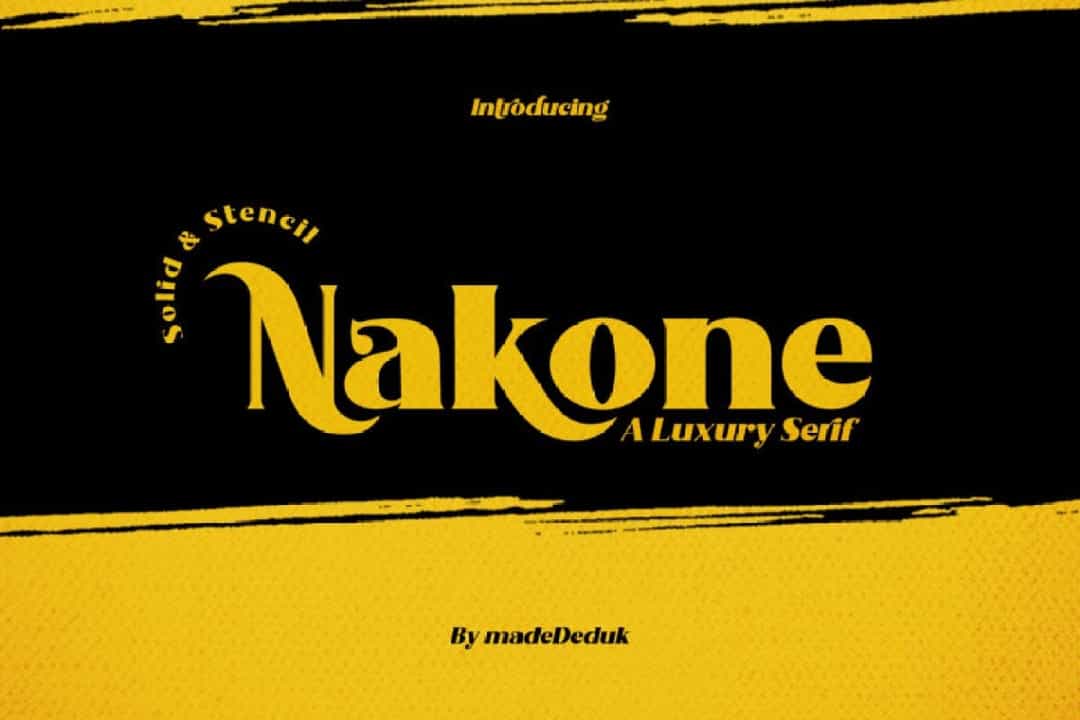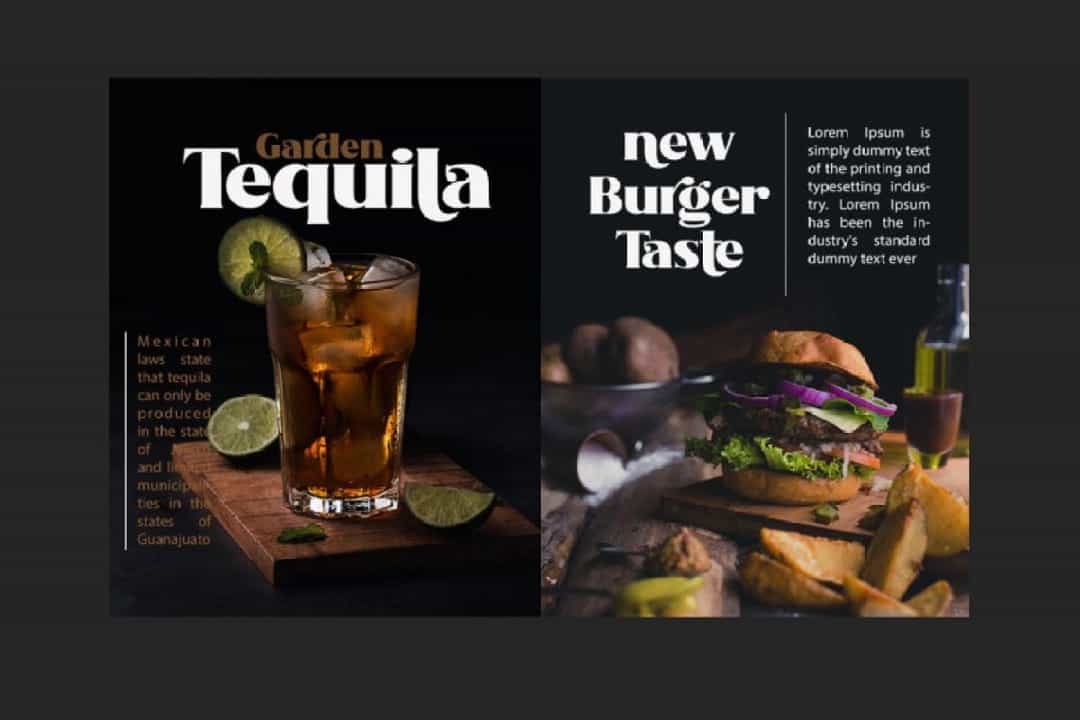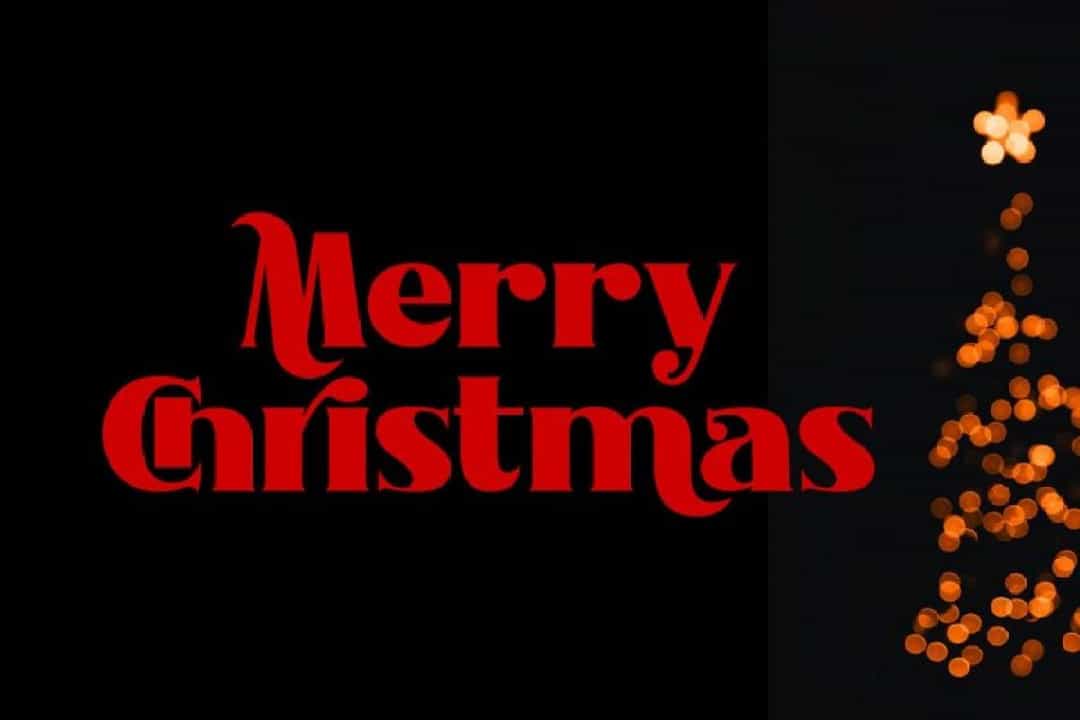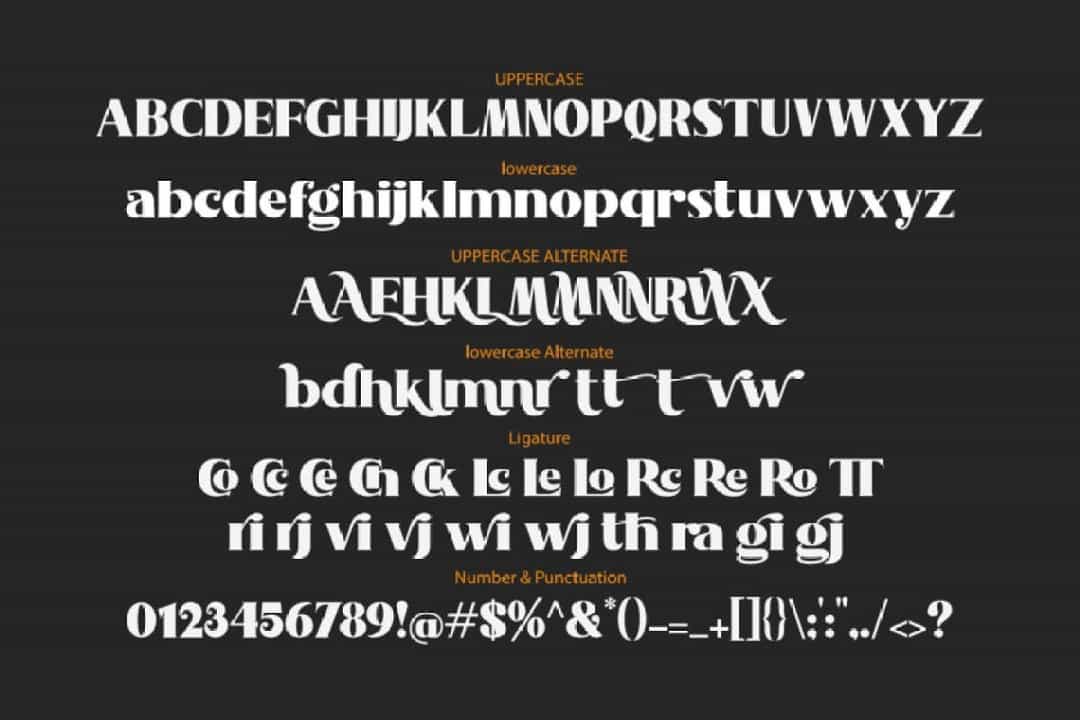
Nakone is a highly professional, modern serif font with many font variations and ligatures to choose from to make your logo or business proposals even more attractive! Buy it for use with other script collections or to have it for yourself, for example, for creating invitation cards for a wedding or for creating your own logo!